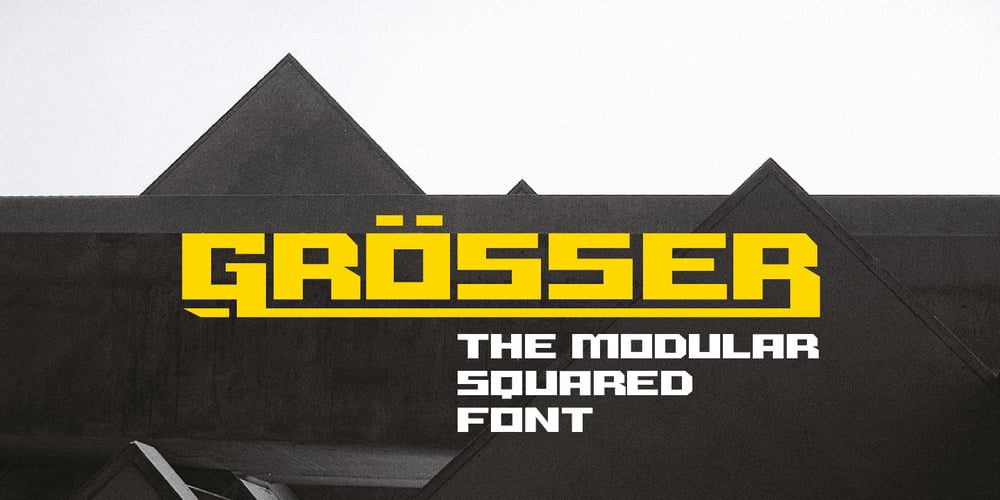
Grosser Font Family was designed by Leo Colalillo and published by Leo Colalillo. Grosser contains 2 styles and family package options. The design of Grosser* is inspired by the northern european modern architecture with it’s rational shapes. The font was born for posters and to be used on large formats, the geometric shapes and the solid structure makes it a very good choice to do posters and graphics where you need an extra bold font with sharp lines. *Grosser (Größer) is a german word, which means “bigger/larger”.